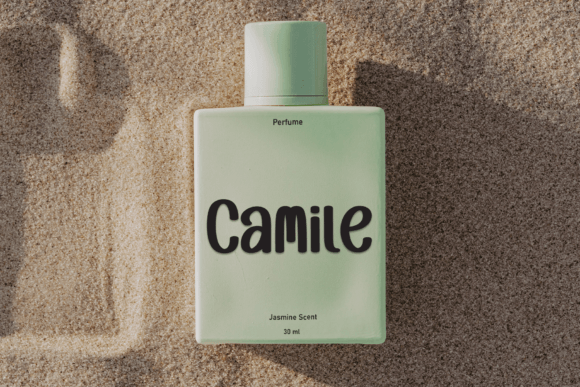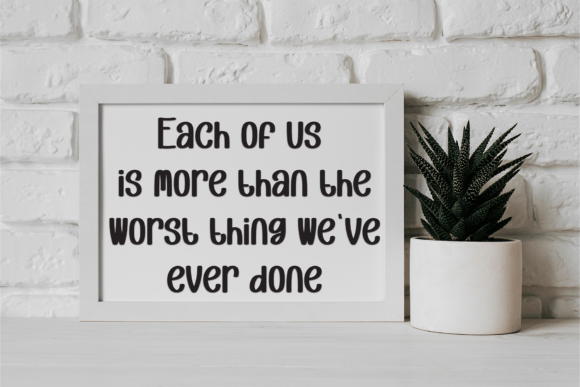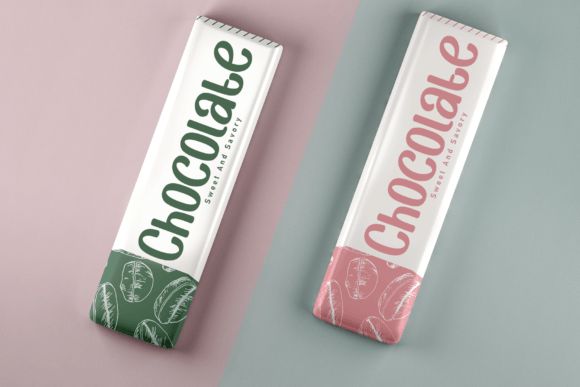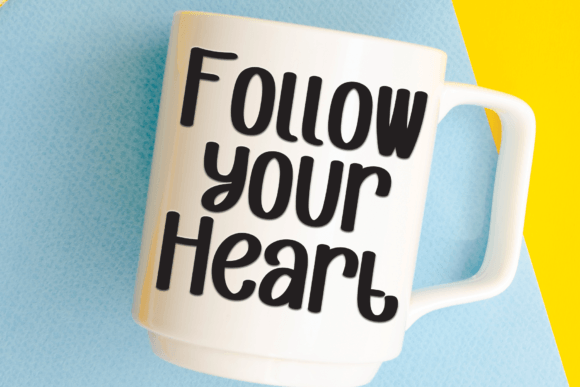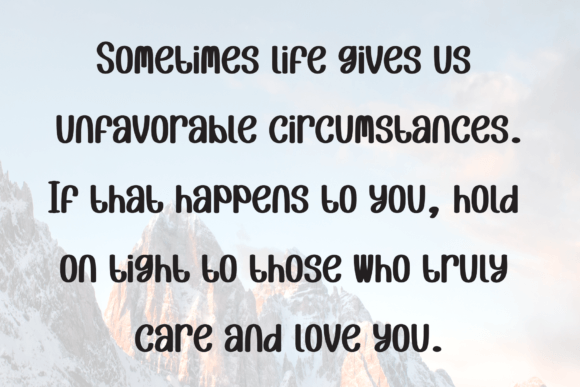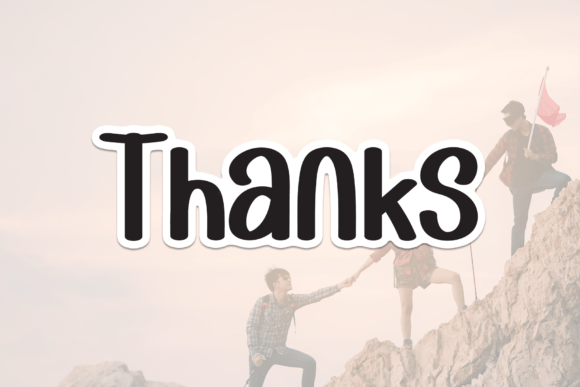
The Joy of Handwritten Design: Introducing Happy Climb Font
As a designer, have you ever found yourself brainstorming ideas for a project, only to hit a creative roadblock? Maybe you’re designing a wedding invitation, but nothing seems quite right. The words “love” and “happiness” are supposed to be effortless, but somehow, they’re just not translating to paper. That’s where a special font comes in – one that captures the essence of joy and playfulness, making your design shine.
Enter Happy Climb Font, a sweet and friendly handwritten display font that’s perfect for adding a fun touch to your designs. This adorable font is ideal for writing wedding invitations, cards, and any other project that needs a little extra love. What makes Happy Climb Font so valuable to designers is its versatility and ability to evoke emotions – a true game-changer for any creative project.
Happy Climb Font Key Features
- Font Family: Happy Climb Font is a unique, handwritten font designed to evoke a sense of joy and playfulness.
- Unique Characteristics: Happy Climb Font features a mix of cursive and handwritten elements, with a focus on expressive, flowing lines and subtle texture.
Happy Climb Font Review
I recently had the chance to work with the “Happy Climb Font” and I must say it’s a unique and quirky addition to any design project. Here’s my honest review:
- The font’s playful and energetic vibe is infectious – it’s perfect for projects that need a fun and lighthearted tone.
- The font’s varied letterforms and shapes make it visually interesting and engaging.
- The font is highly customizable, making it easy to adjust the size, color, and spacing to fit your design needs.
- The font may not be suitable for formal or professional projects, as its playful nature may come across as unprofessional.
- The font’s bold and playful style may be overwhelming if used in large quantities or for extended periods of time.
- The font may not be as readable in smaller sizes or when used for body text.
Overall, I think the “Happy Climb Font” is a great addition to any designer’s toolkit. While it may have some limitations, its unique and playful style makes it perfect for projects that need a fun and lighthearted tone. With some careful consideration of its use and limitations, this font can add a lot of personality and charm to your designs.
The Happy Climb Font is perfect for creating playful and energetic designs. To get the most out of it, try using it in combination with bright and bold colors, and experiment with different font sizes and styles to add emphasis to your text.
The Happy Climb Font is ideal for use in children’s educational materials, marketing materials for kids’ products, and social media graphics. It’s also a great choice for creating eye-catching headlines and titles.